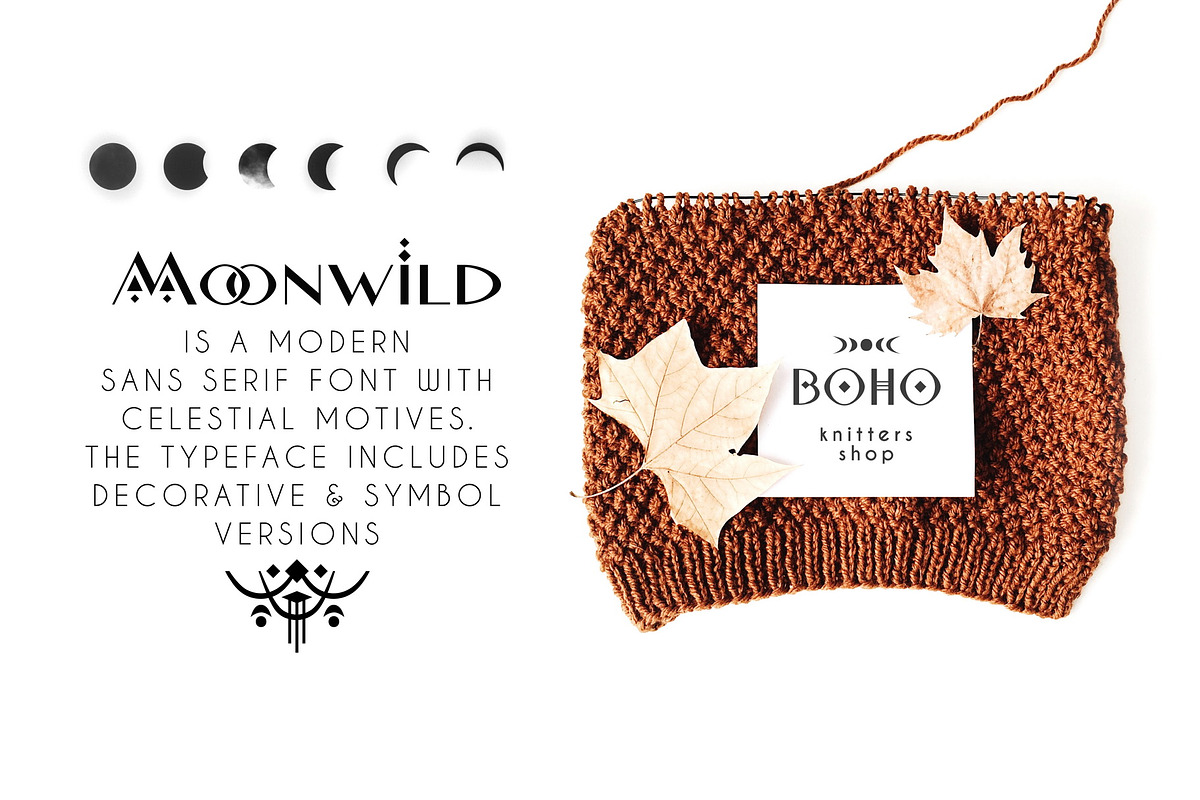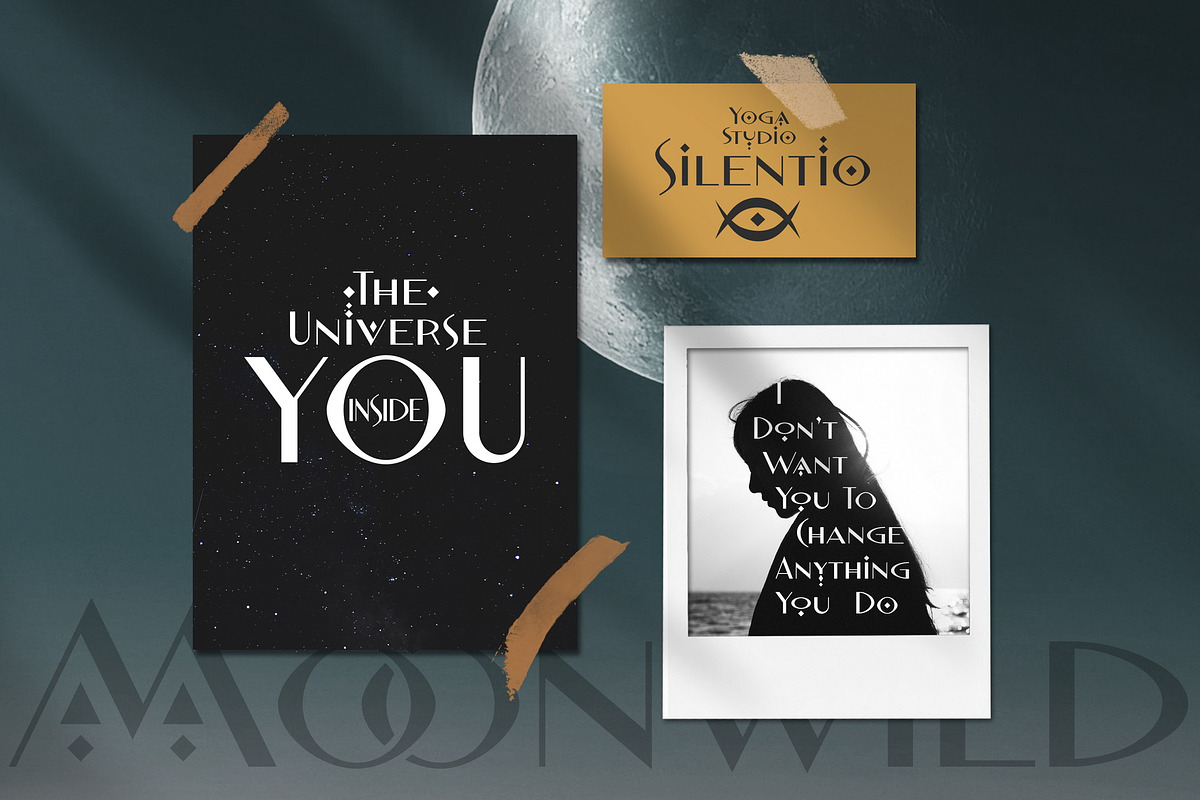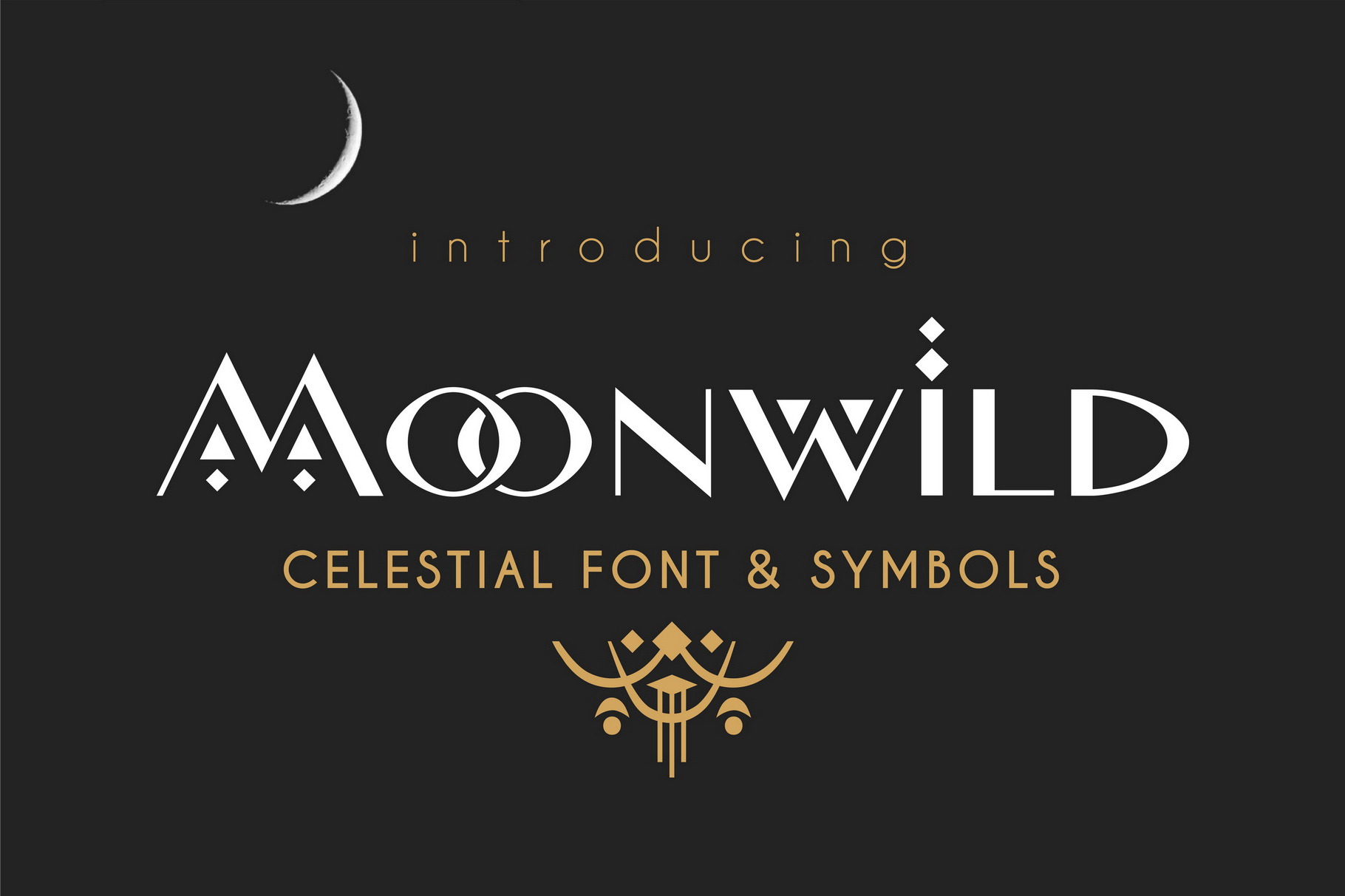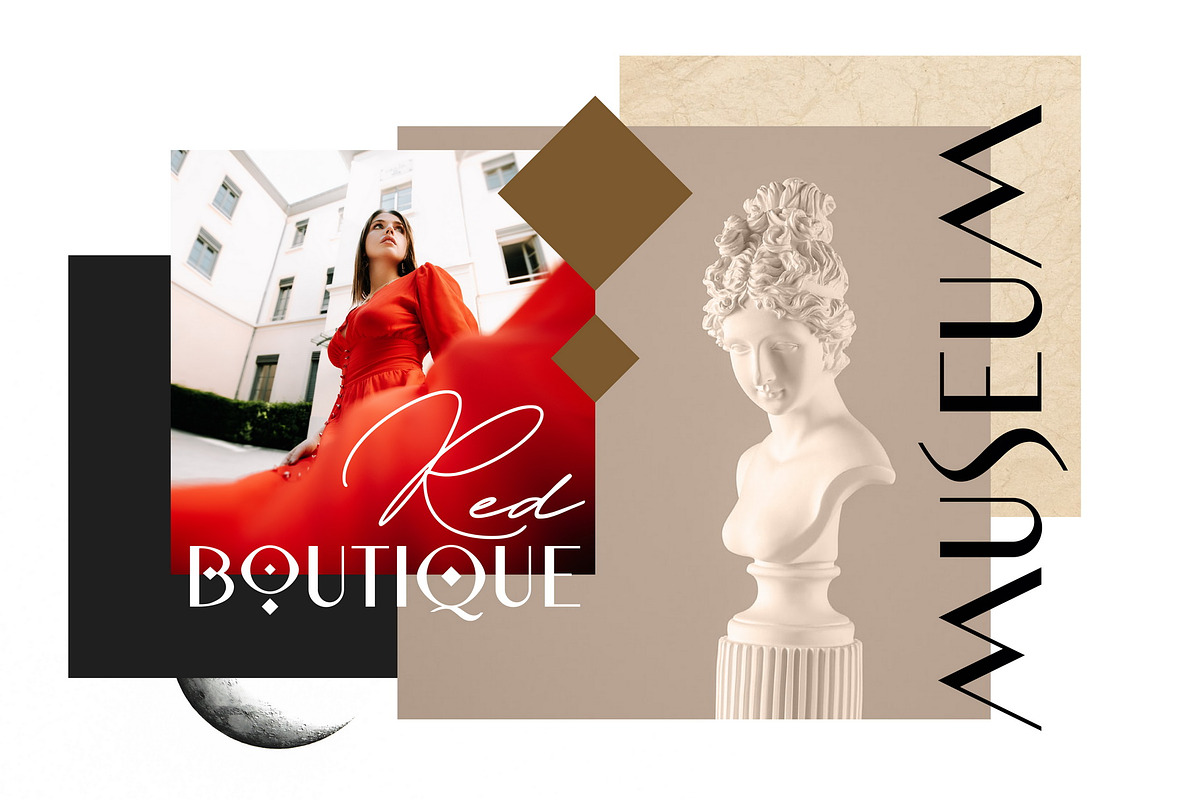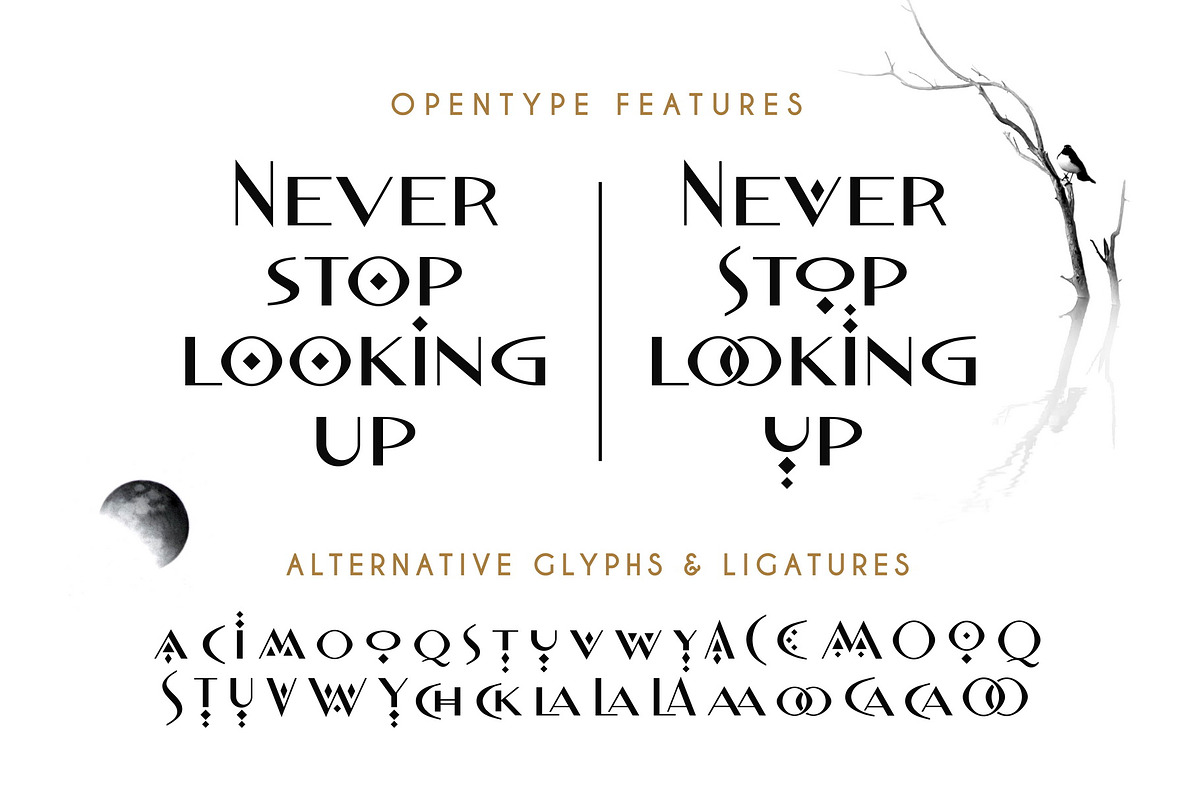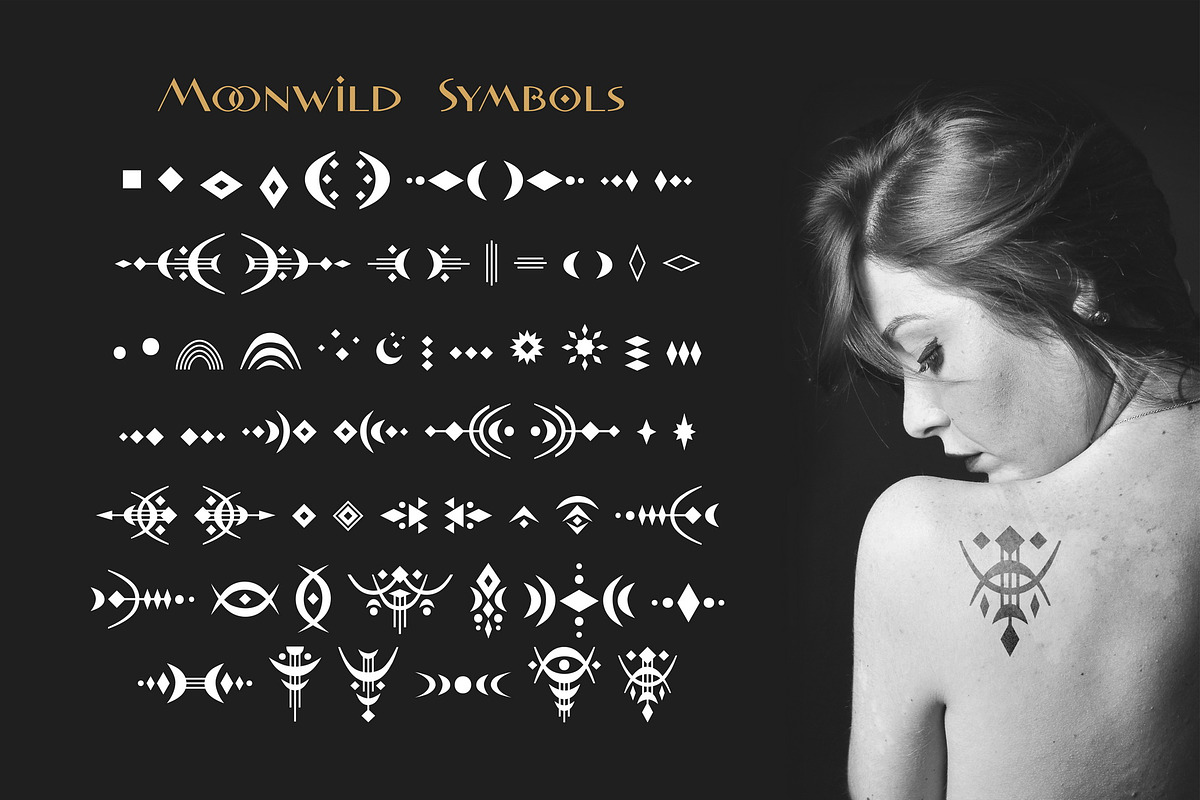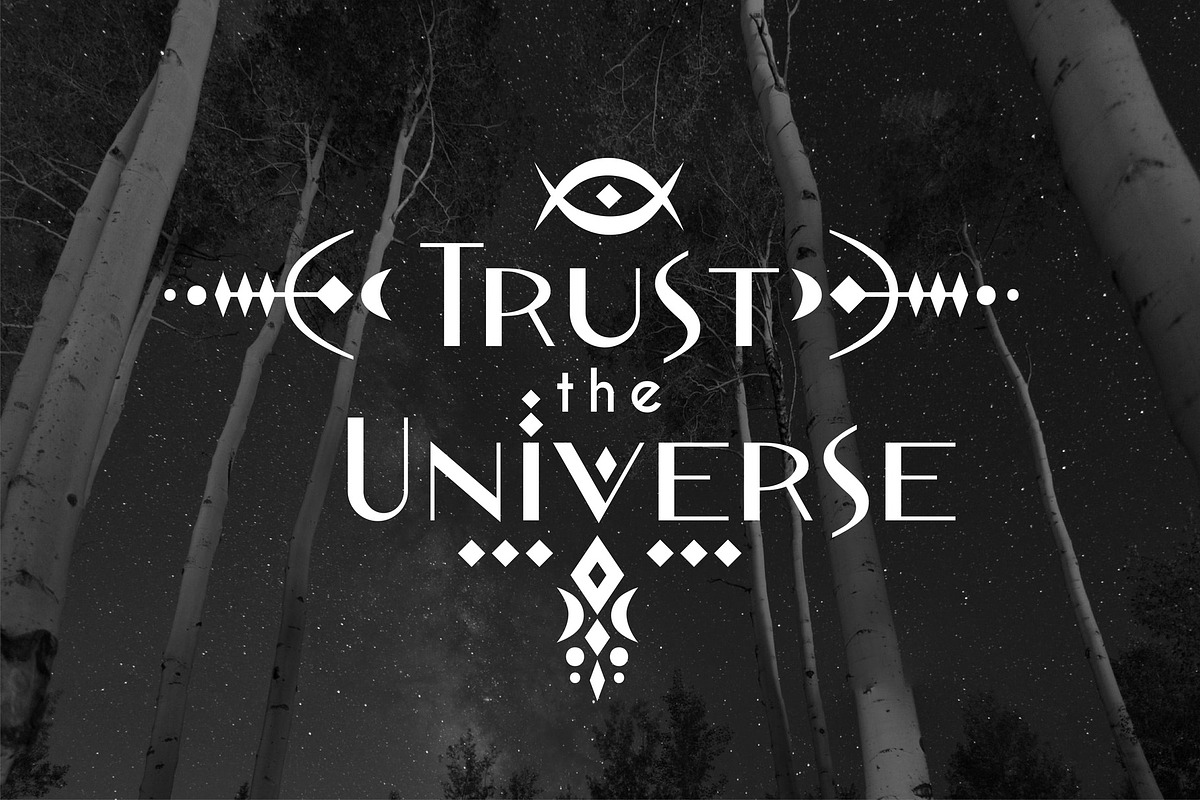
Moonwild - Celestial Font & Symbols
Moonwild is a modern sans serif font with celestial motives. The typeface includes Decorative and Symbol versions. The font is easy to use in various design programs or without any program.
Moonwild is suitable for typographic prints, retro and modern posters, boho art & fashion design. The font works great for craft products branding and packaging (organic cosmetics, jewelry, handmade soap ect.) Also use individual letters and symbols to create logos and monograms.
- MoonwildDecorative
- MoonwildSymbol
Moonwild includes stylistic alternates for symbols: a c i m o q s t u v w y A C M O Q S T U V W Y. There are also ligatures: ch ck la La LA aa oo Ca ca OO.